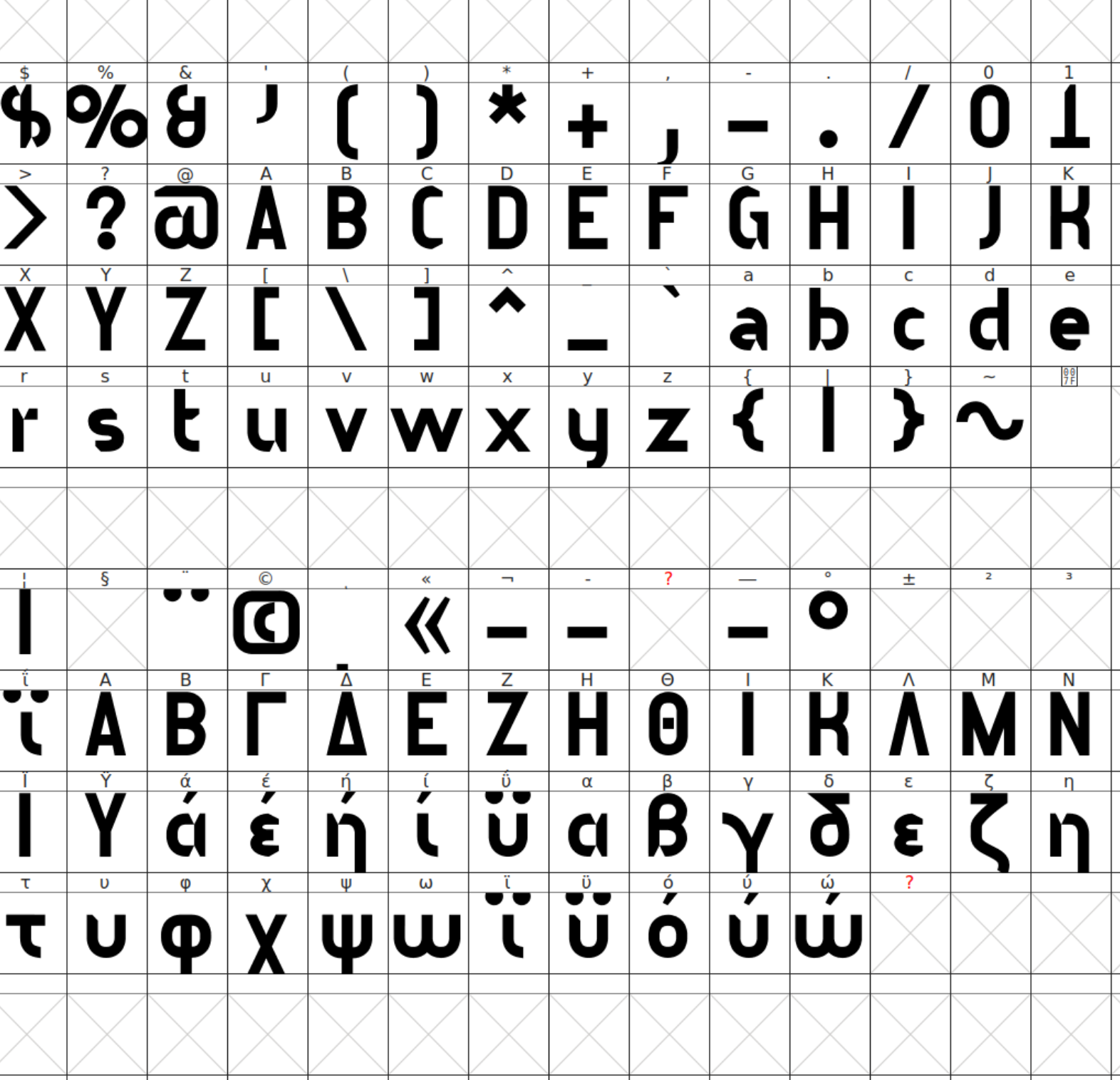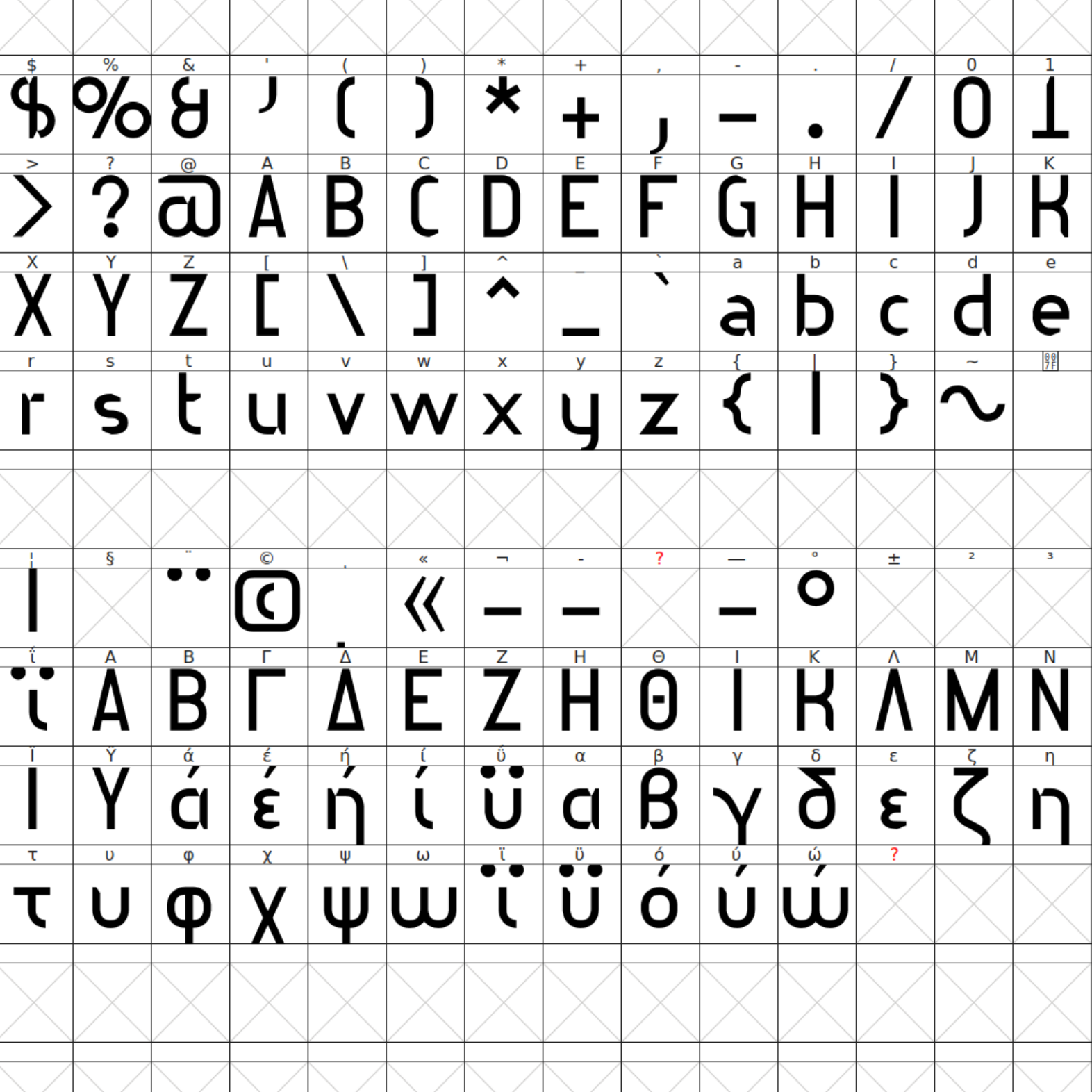
PVF Sequel is a Post-Modern Display Sans-Serif typeface featuring Greek, Latin, symbols, and numbers in 3 weights: Light, Medium, Bold with Italics. Its aesthetics refer to technology, energy, power with a human epicenter that reflects a new positive era, fitness, sports, etc. A good thing about Sequel is that can be part of texts - short paragraphs and/ or appear on titles.